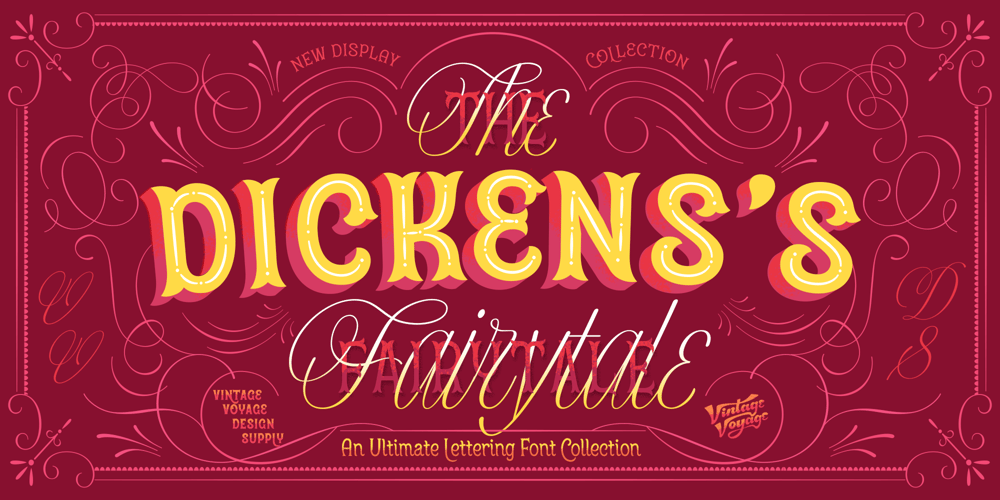
VVDS The Dickens Tale Font Family was designed by Pavel Korzhenko and published by Vintage Voyage Design. VVDS The Dickens Tale contains 12 styles and family package options. The Dickens’s Fairytale – it’s a new chapter of VVDS products – The collections of fancy display fonts which will include many typefaces that will be perfectly combined not only with each other, but also with other collections of this series. As a result, you will get a large collection of beautiful fonts and graphics that will help you create beautiful designs without having to look for anything else. All these collections are inspired by classic books design of XIX and XX centuries like Franklin’s Library Classic Collection and modern publishing houses like Barnes & Nobel Collectible Editions. This collection is the first one and including 12 font files. The Serif presented in two styles – cutted and normal. The cutted style has two weights – Regular and Bold. Also, there are two types of shadows – block and offset. Plus decor for cutted serif. The cherry on top – curly calligraphic Script with Swirl calligraphy elements for decoration. The both of types has many Open Type Features as Oldstyle Figures, Fractions, Stylistic Alternates and ending lowercase letters for script. • OTF & WEB • Multilingual